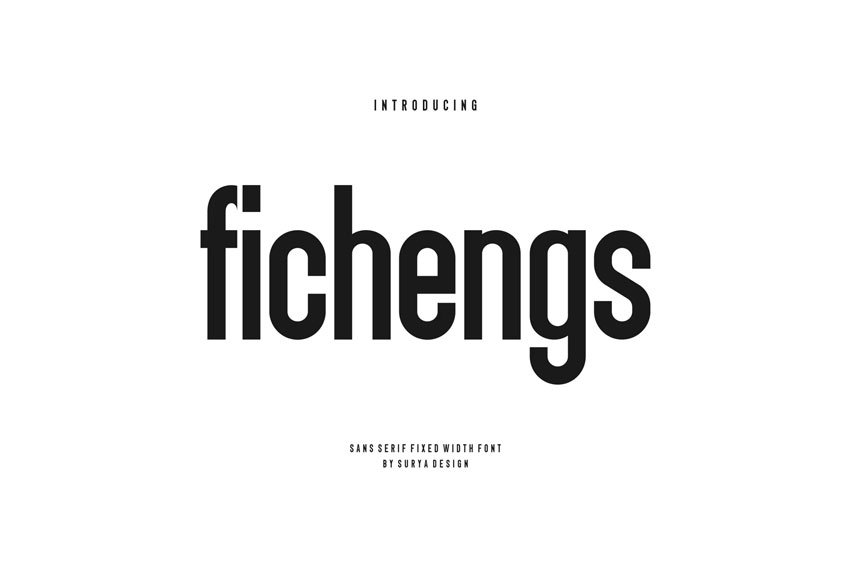
Fichengs Font Modern Font is a bold and authentic display font. The font is suitable for any branding project, like logos, esport, and many more.
outstanding in a wide range of contexts.